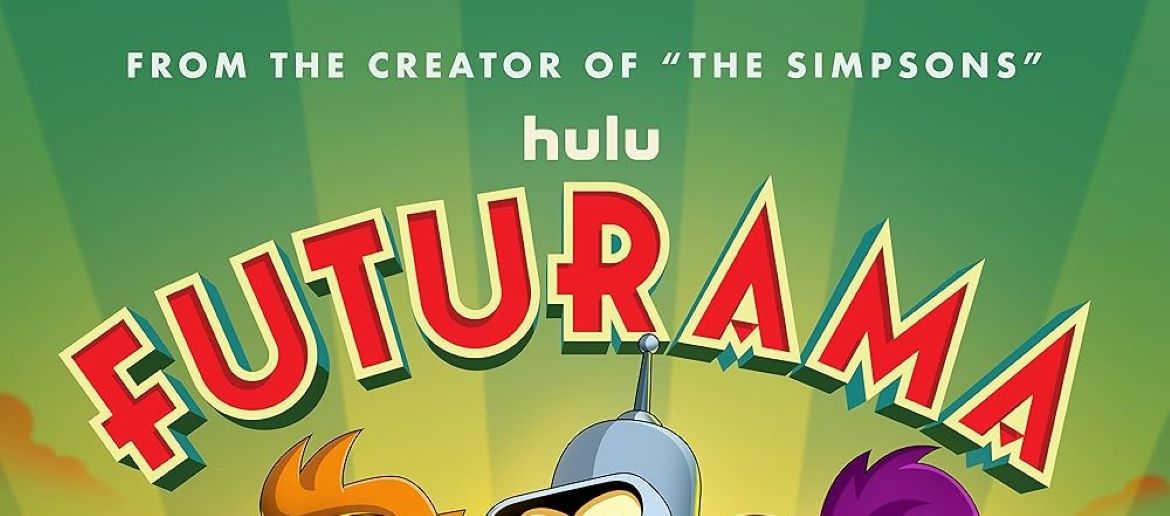
Futurama Font
The Futurama font brings the playful, space-age spirit of the series to life with its bold curves and retro-futuristic charm. Its lively, animated style instantly evokes memories of sci-fi adventures, colorful characters, and the show’s unmistakable humor. This type of lettering works wonderfully for fun, imaginative designs—whether you’re crafting posters, themed graphics, or creative fan projects. While the exact font isn’t publicly available, Rainfall – Black offers a very close match, aside from the “F.” You can download an alternative below.
About Futurama
Futurama is a sci-fi animated comedy created by Matt Groening, first airing in 1999. The series follows Fry, a 20th-century pizza delivery boy who wakes up in the 31st century, joining robot Bender and captain Leela on wild intergalactic escapades. Blending sharp wit, clever satire, and futuristic storytelling, the show has earned a devoted fanbase and remains a standout in animated science fiction.